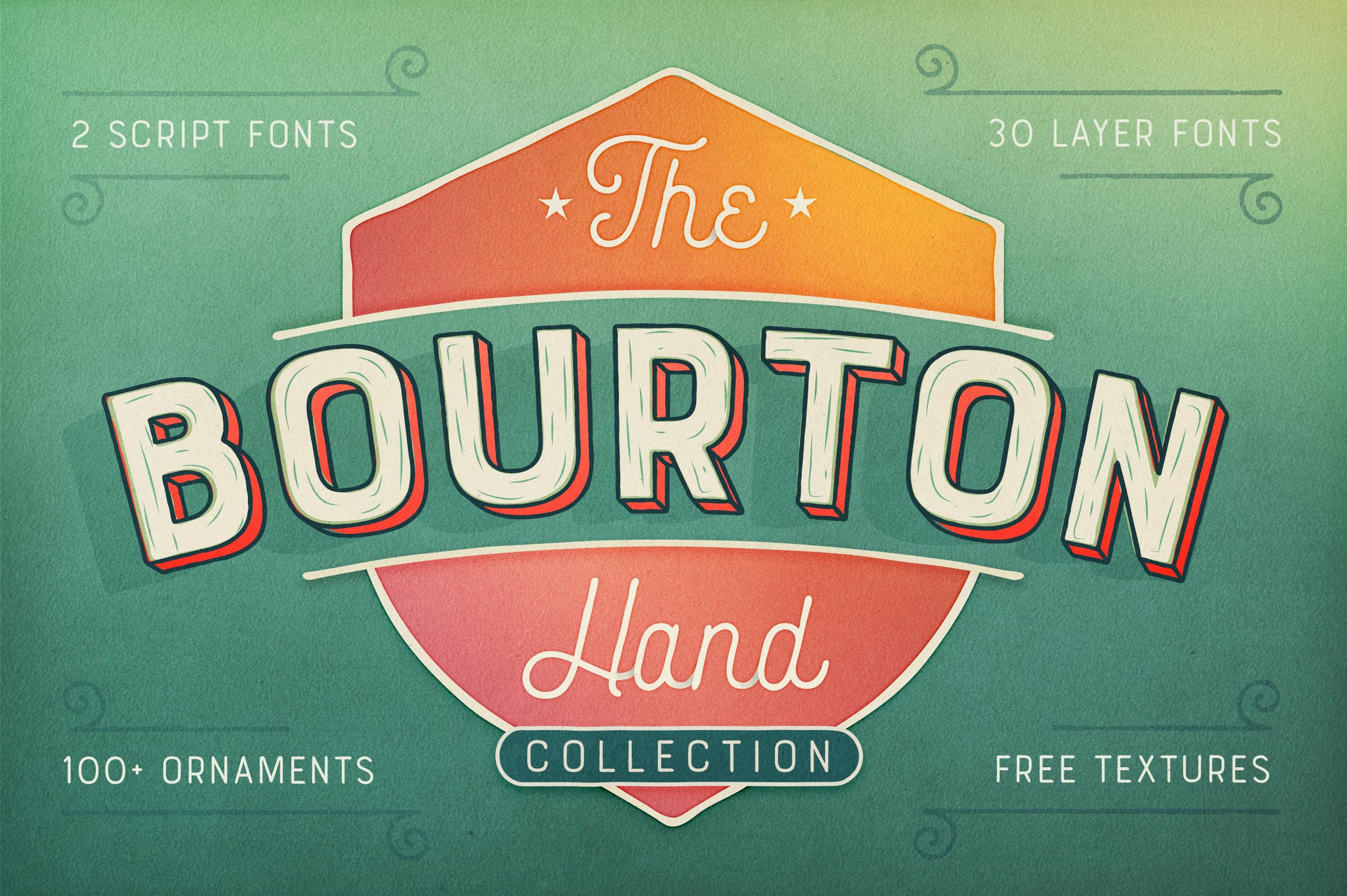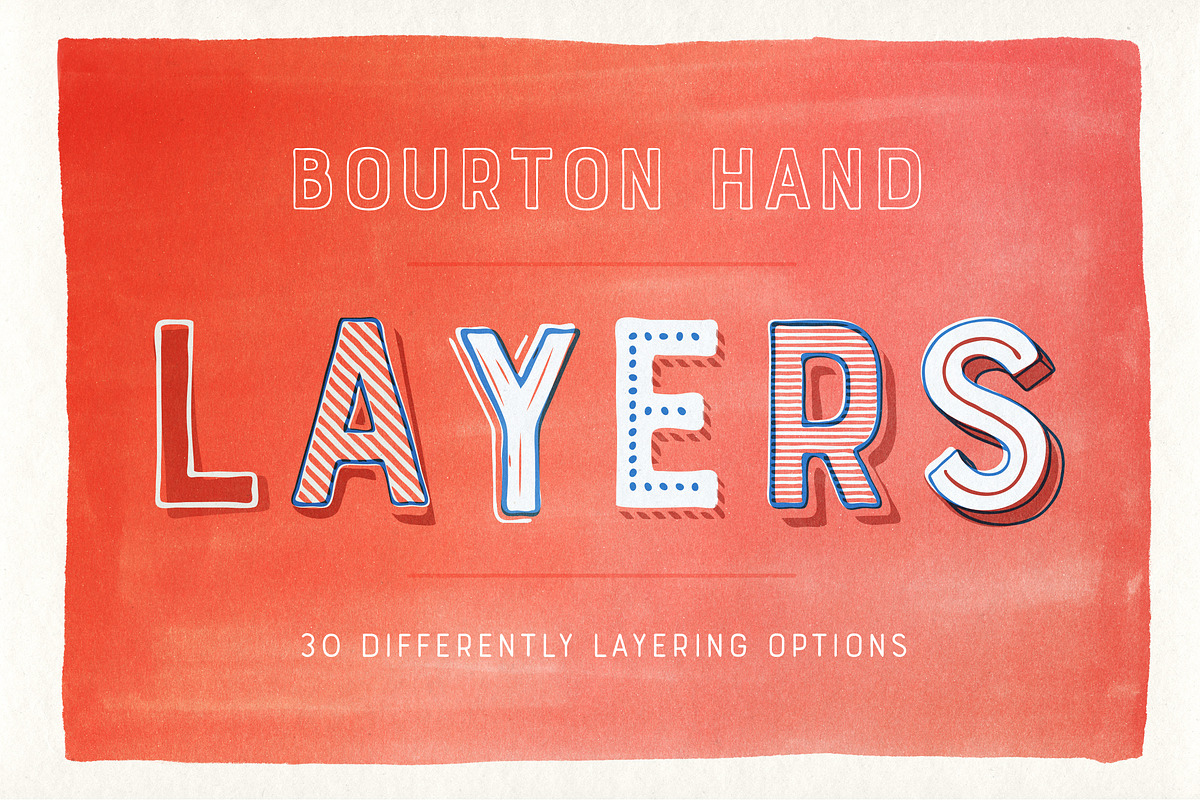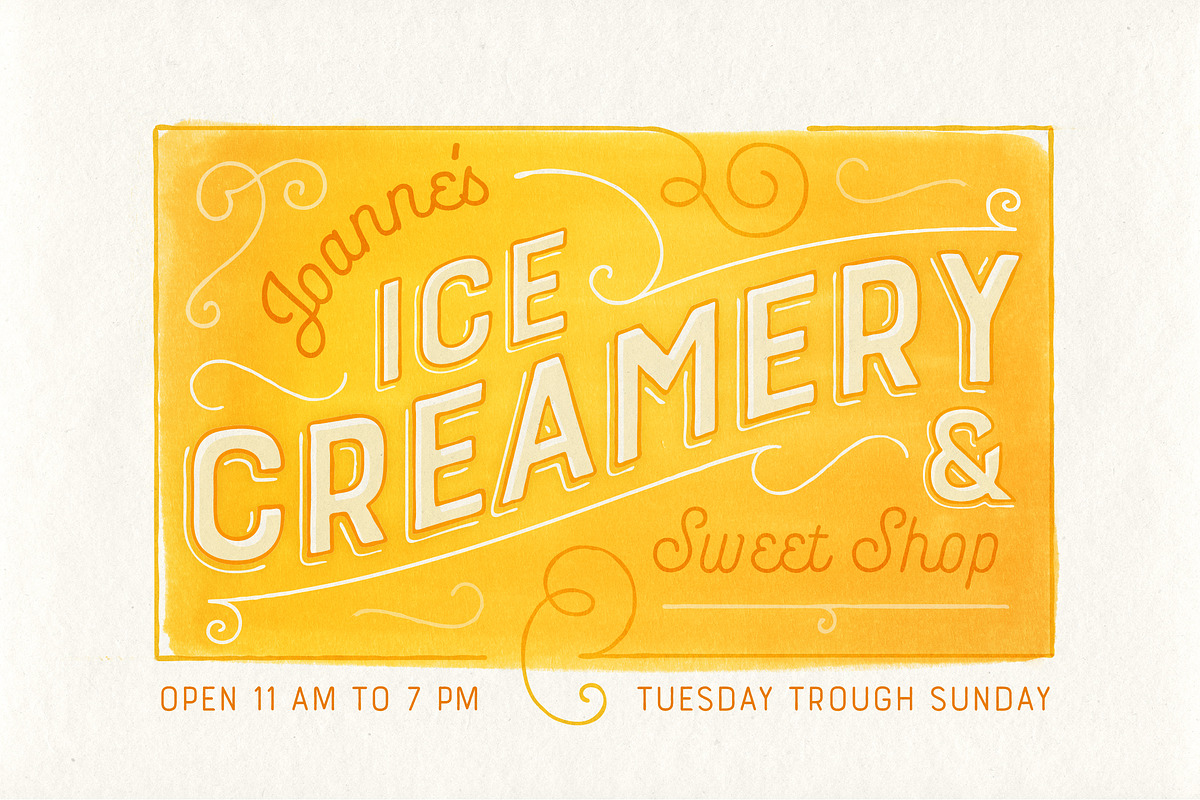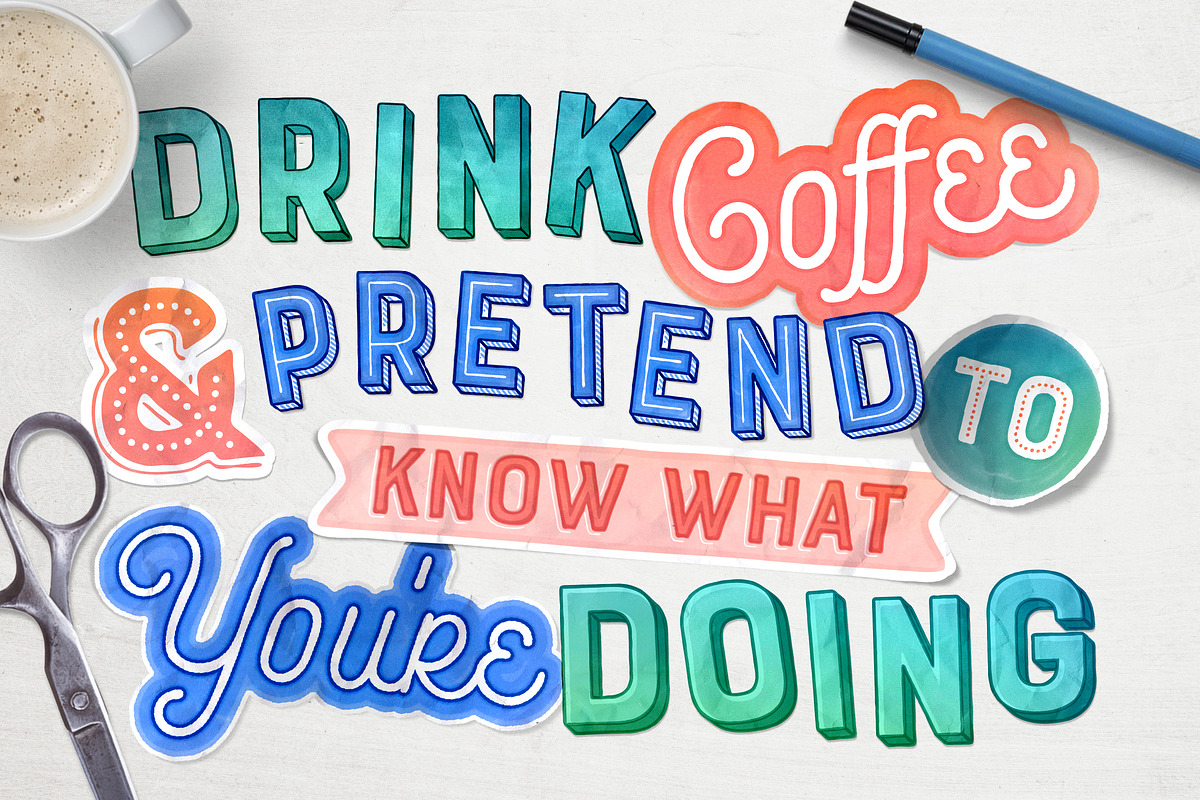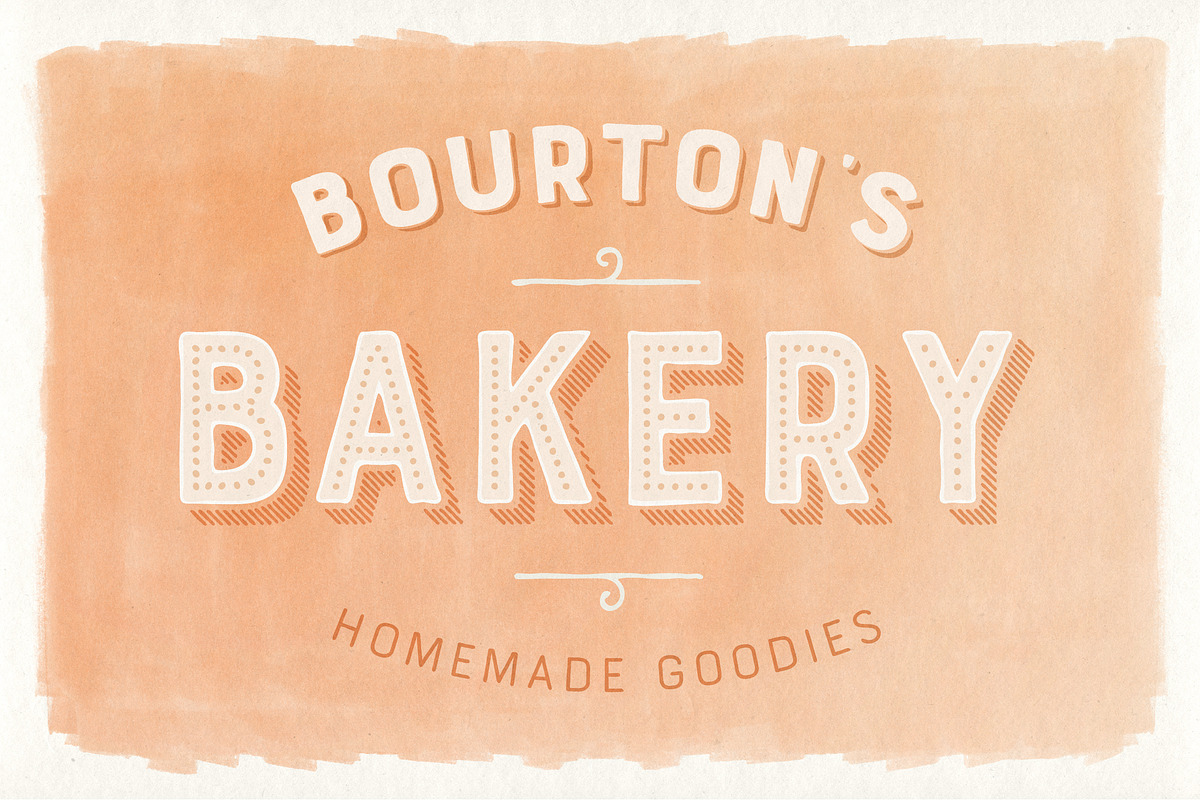
Bourton Hand Font
Bourton Hand is the handmade version of the Bourton Family (https://creativemarket.com/KimmyDesign/1042062-Bourton-Typeface-%E2%80%A2-34-Fonts)
This hand-drawn collection offers tons of layering options, stylistic alternatives, graphic extras and even comes with its own script font!
Similar to its sister font, we are providing you with a set of over 30 free bonus logo templates. These mock-ups utilize some of Bourton Hand’s extras and contain live text. Simply change the placeholder text with your own and ‘BAM!’ you now have a sweet logo. Hopefully these provide some inspiration for how you can use the graphic extras, layering options and script font together to make something awesome.
Bourton Hand Layering Fonts
- 6 Base Layer Fonts (Base, Inline, Marquee, Stripes A, Stripes B, Stripes C, Sketch A, Sketch B)
- 6 Top Layer Fonts (Base Drop, Dots, Line Light/Medium/Bold, Outline Light/Medium/Bold)
- 6 Extrude Fonts (Extrude, Outline, Shadow, Extrude Outline)
- 5 Drop Shadow Fonts + 5 solo styles (Drop Shadow, Drop Extrude, Drop Line, Drop Stripes A, Drop Stripes B)
- 2 Line Fonts for secondary text (Line Medium, Line Bold)
Bourton Hand Script
- Light
- Bold
Bourton Hand Extras